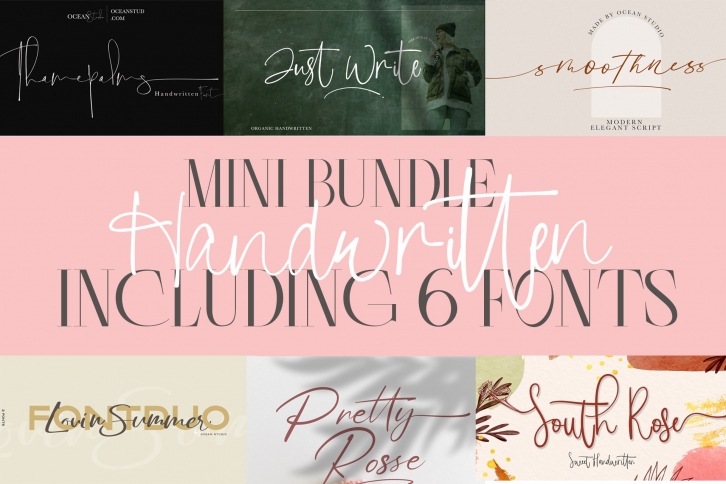
Mini Bundle Handwritten is a gorgeous font that was realeased on April 11, 2021. The font can be used in many style contexts and design environments. Perfect for invitations, magazines, websites, logos, and more! It was designed by Ocean Studio and the file size is 15.74 MB. Thanks for checking out this font!